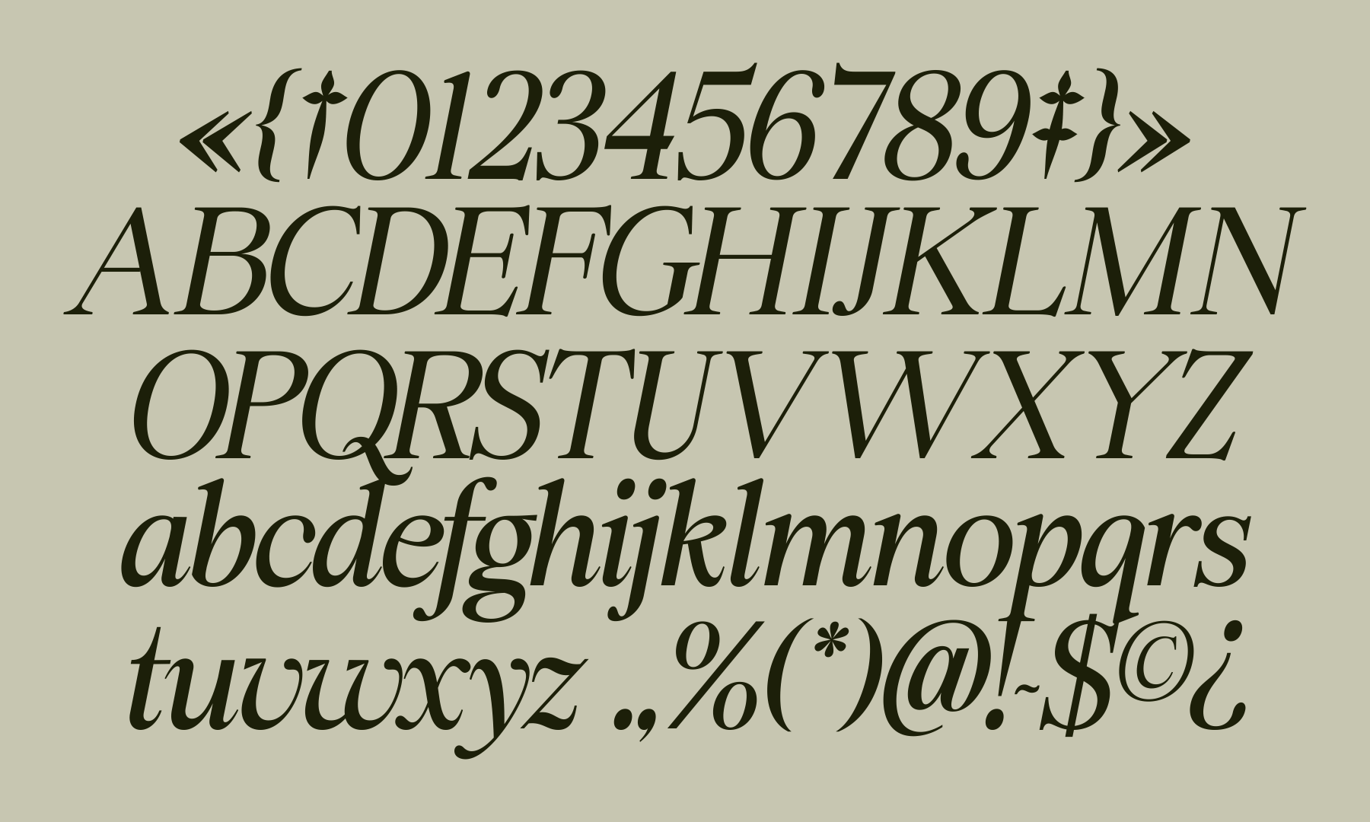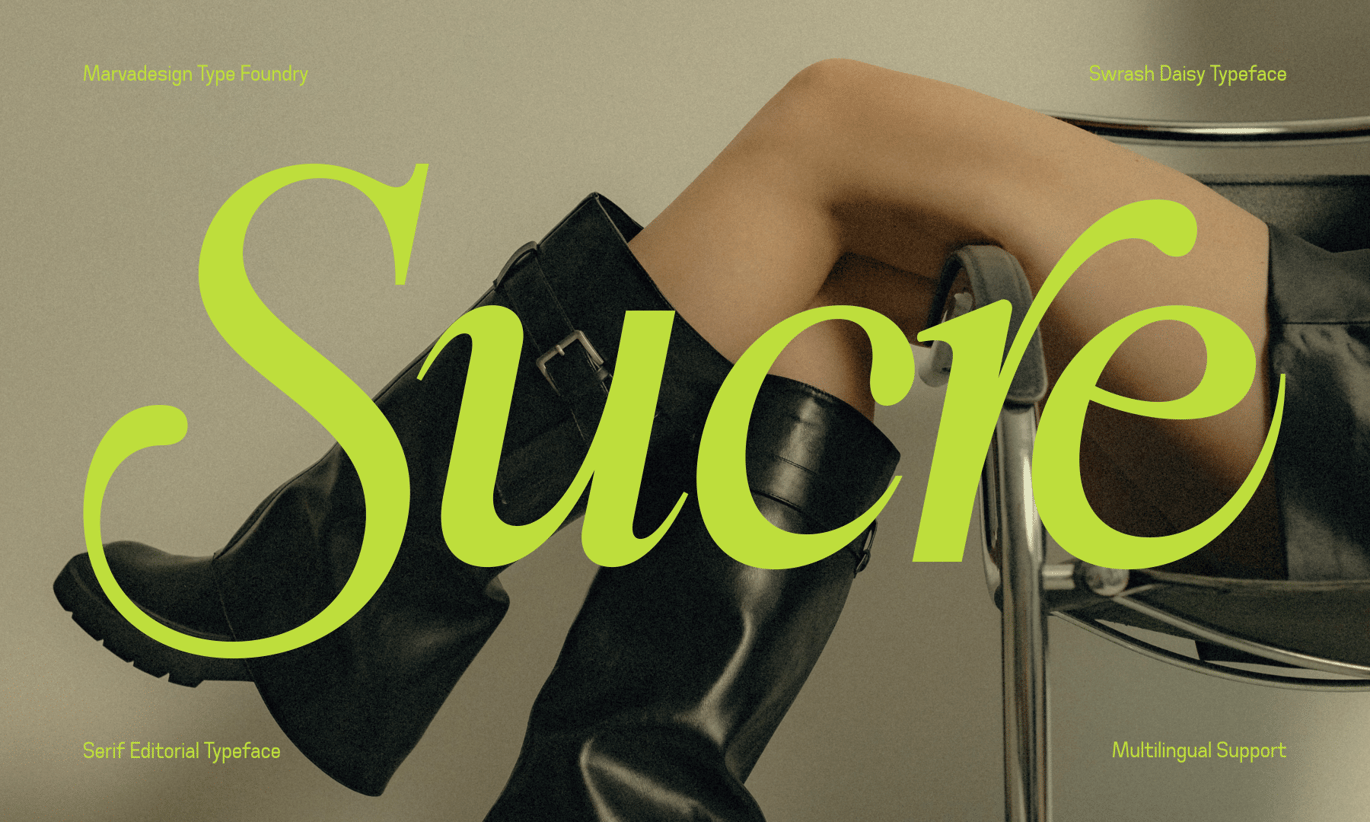
Swarsh Daisy – Elegant Serif Display Font
Swarsh Daisy – Elegant Serif Display Font is a versatile typeface ideal for various projects, including logos, branding, posters, blog headers, advertisements. The free version includes a full set of uppercase and lowercase letters, available in OTF, TTF, WOFF, WOFF2 format.